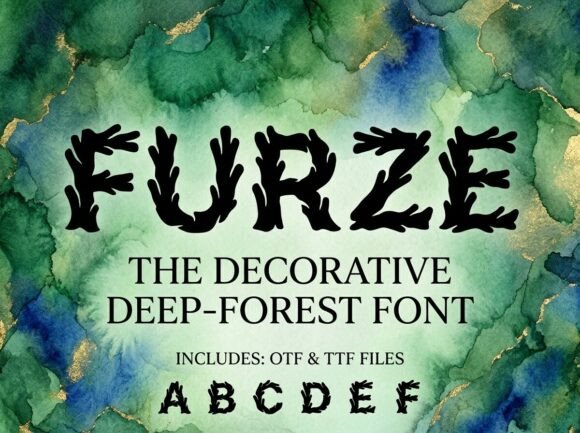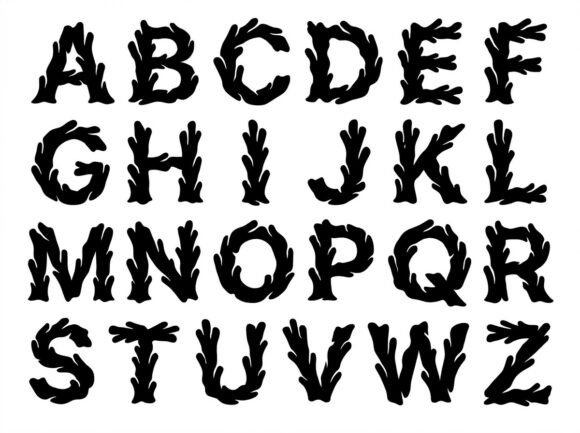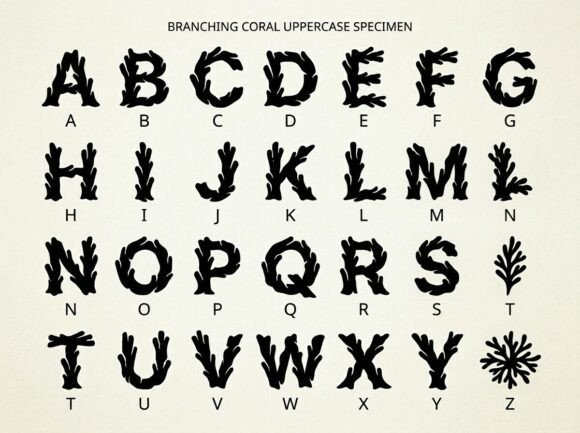
The Furze Font: A Stunning Decorative Display Font for Creative Minds
This font is a game-changer for designers, crafters, and creative hobbyists looking to add a touch of personality to their work. With its unique artistic elements and strong visual personality, Furze Font is perfect for creators who want to break away from the ordinary.
What Makes Furze Font So Special?
Furze Font is a decorative display font designed to be the center of attention. Its versatility makes it ideal for bold headlines, artistic logos, and creative packaging, while maintaining a professional and polished finish. Here are some of the key features that make Furze Font stand out:
- Unique artistic elements that add a touch of personality to your designs
- Strong visual personality that demands attention
- Perfect for bold headlines, artistic logos, and creative packaging
- Professional and polished finish
Honest Review
- ✨ Unique and artistic design that adds a touch of personality to any project
- ✅ Professional and polished finish that’s perfect for clients or personal projects
- 🎉 Versatile and can be used for a variety of design applications, from bold headlines to artistic logos
⚠️ As mentioned earlier, Furze Font is an ALL-CAPS display typeface, which means it doesn’t include lowercase letters. This might be a limitation for some users, but it’s also what makes this font so unique and perfect for high-impact headlines and decorative initials.
🤔 Additionally, some users might find that the font is a bit too bold or overpowering for certain design applications. However, with a little creativity and experimentation, you can find the perfect balance to make Furze Font work for your project.
The Story Behind Furze Font
Furze Font was designed by a team of creative typographers who wanted to create a font that would stand out from the crowd. Inspired by the beauty of nature and the world around us, they crafted a font that’s both artistic and professional. The result is a stunning decorative display font that’s perfect for creators who want to add a touch of personality to their designs.
Q: Is Furze Font suitable for body text?
A: No, Furze Font is a decorative display font designed for headlines, logos, and decorative initials. It’s not suitable for body text.